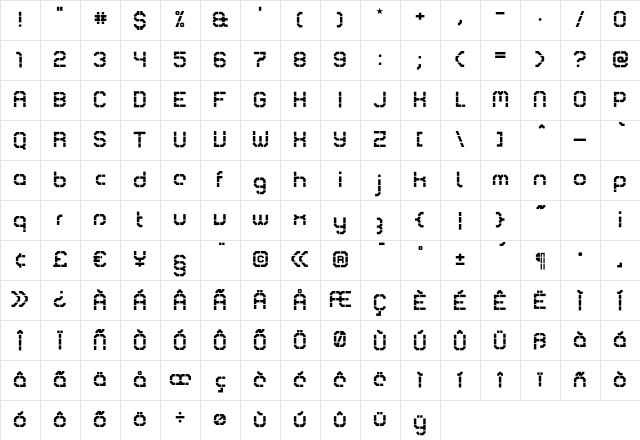
Comsat Navy-Station Free Font
Comsat Navy-Station
Style: Navy-Station
Design Context for Comsat
Comsat is a composed and adaptable typeface that performs quietly and consistently across a wide range of design contexts.